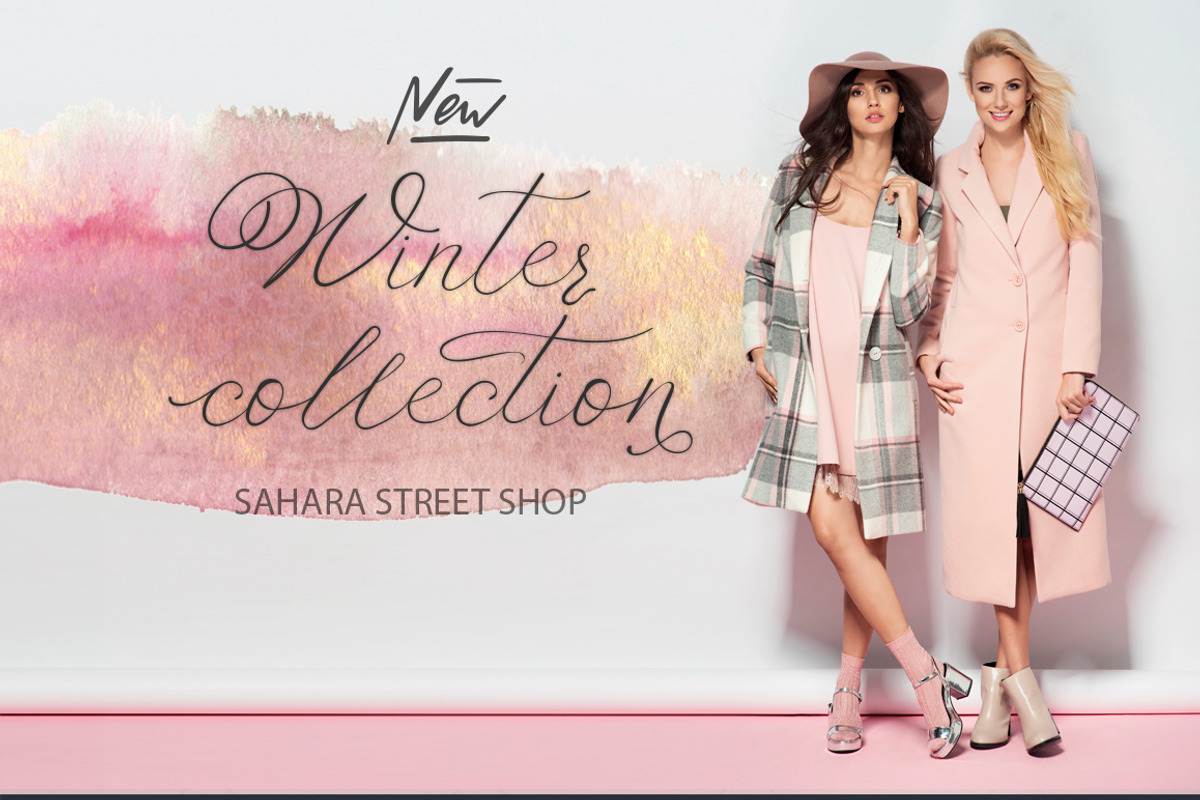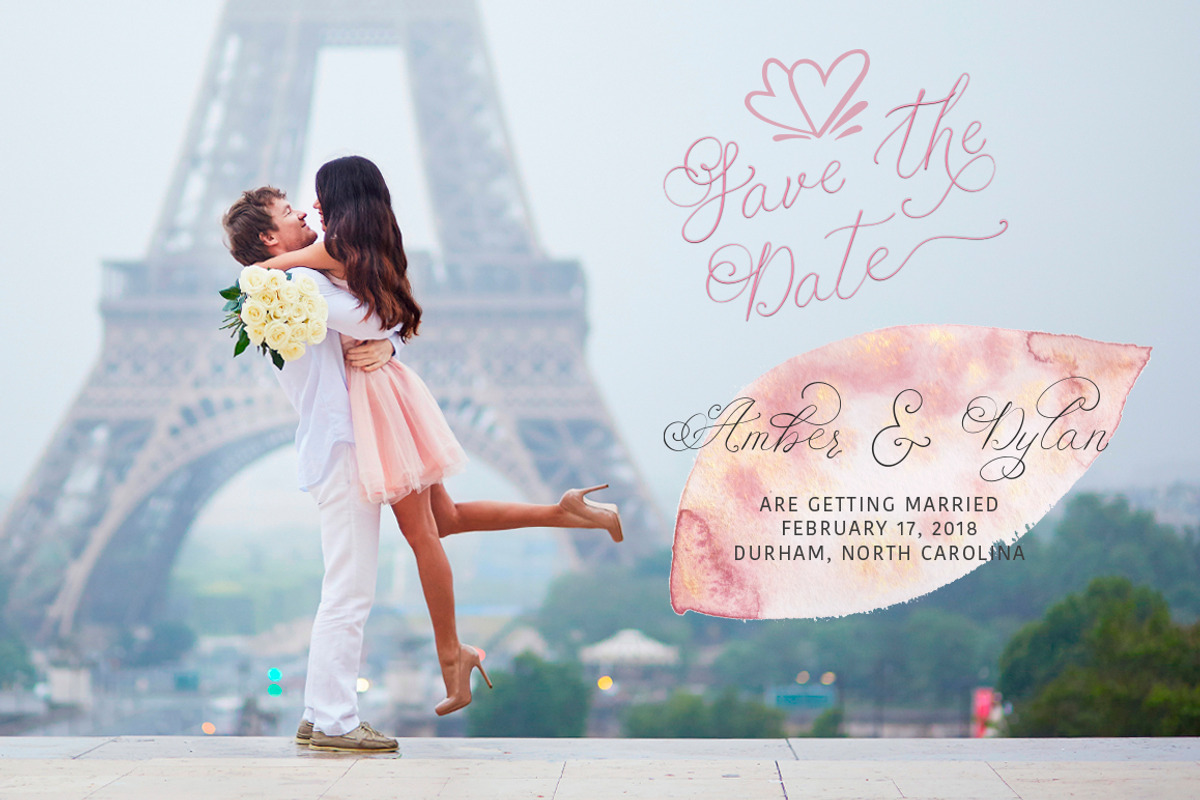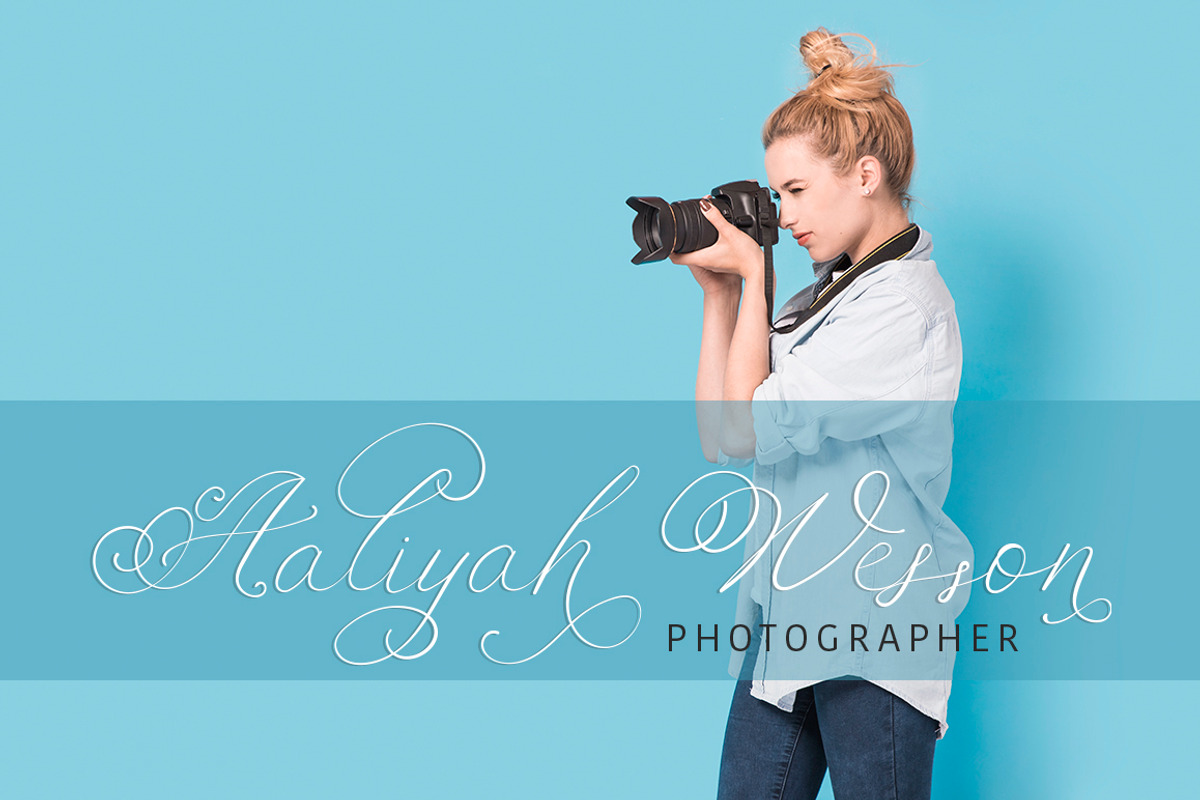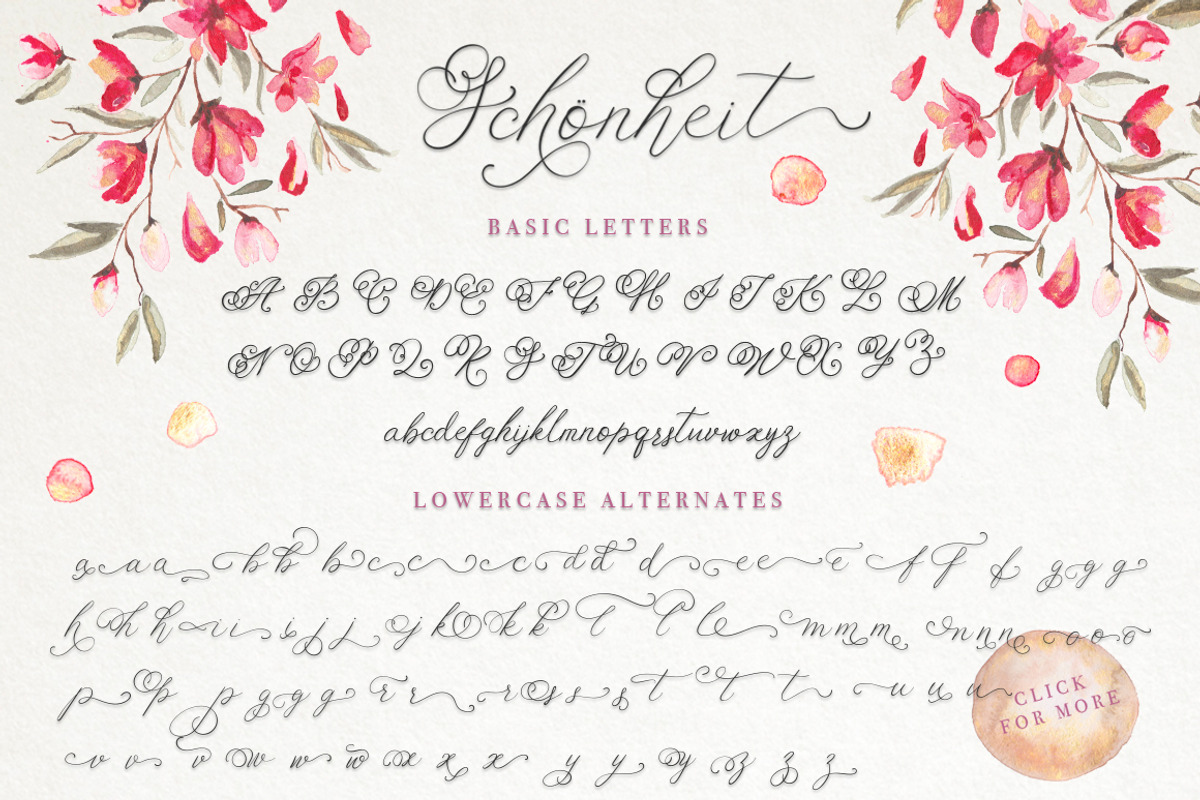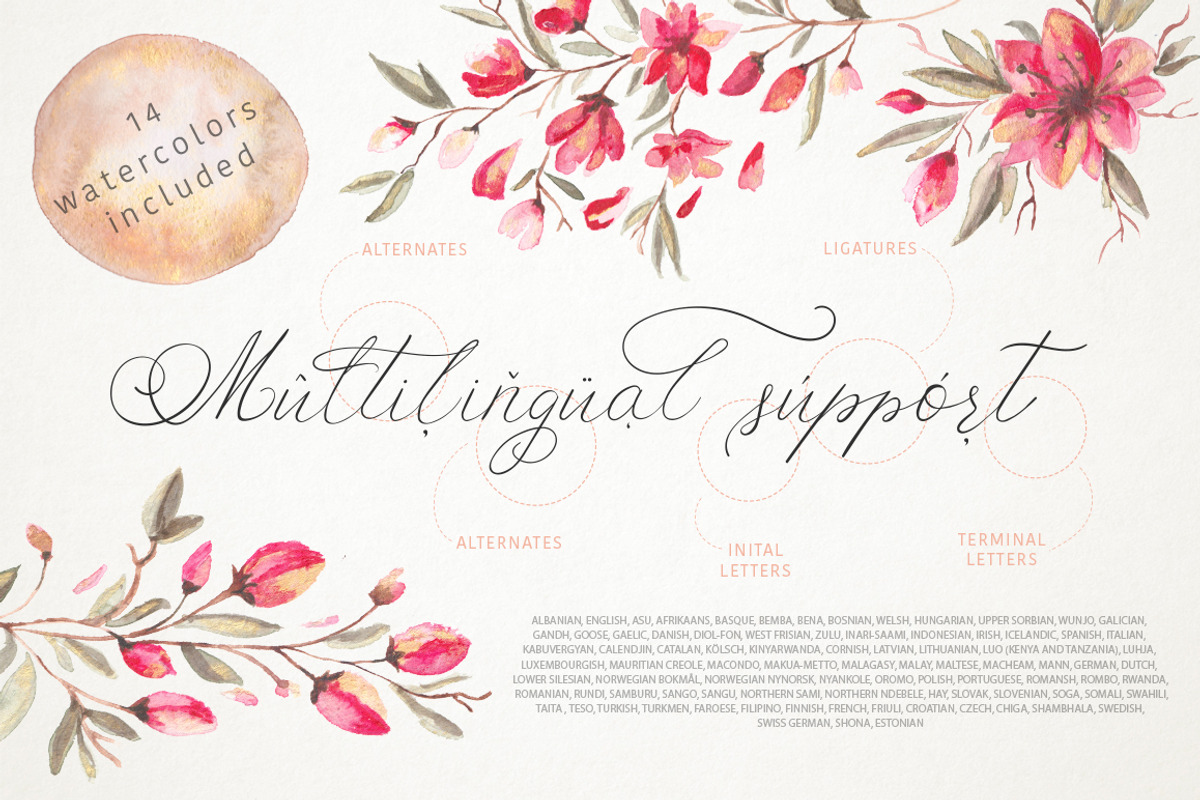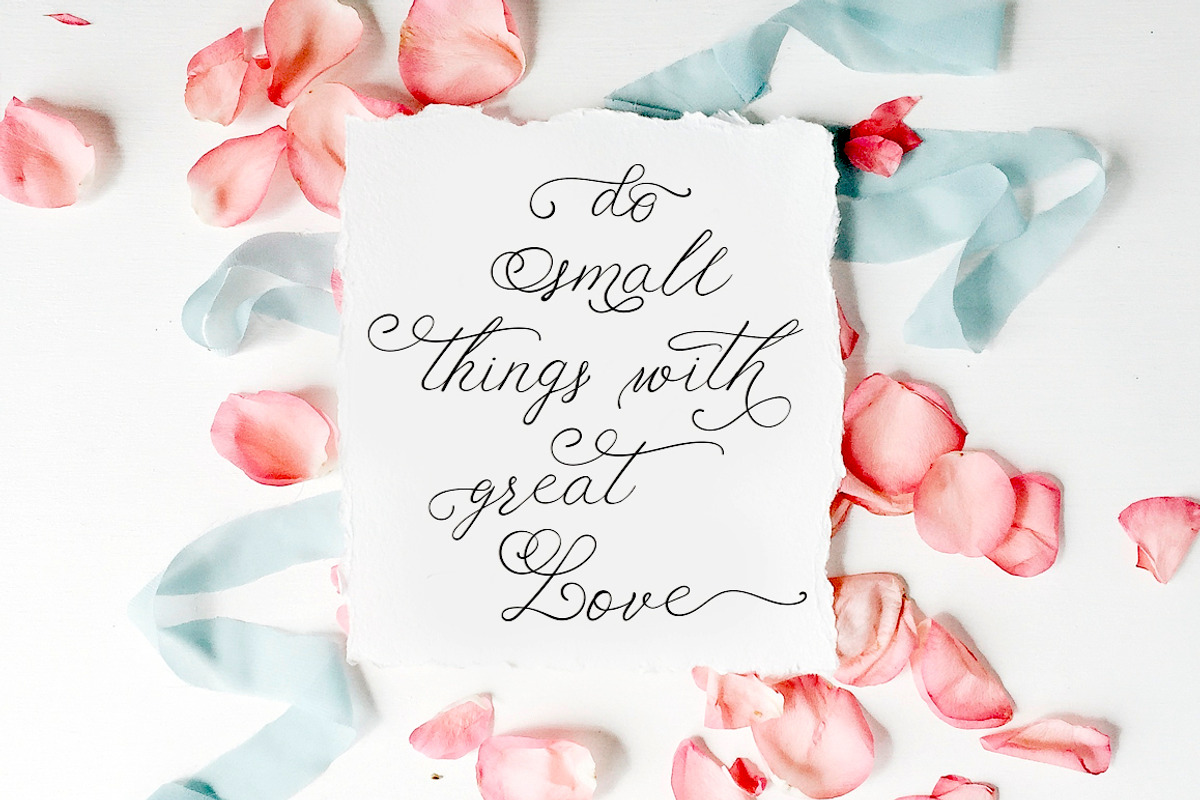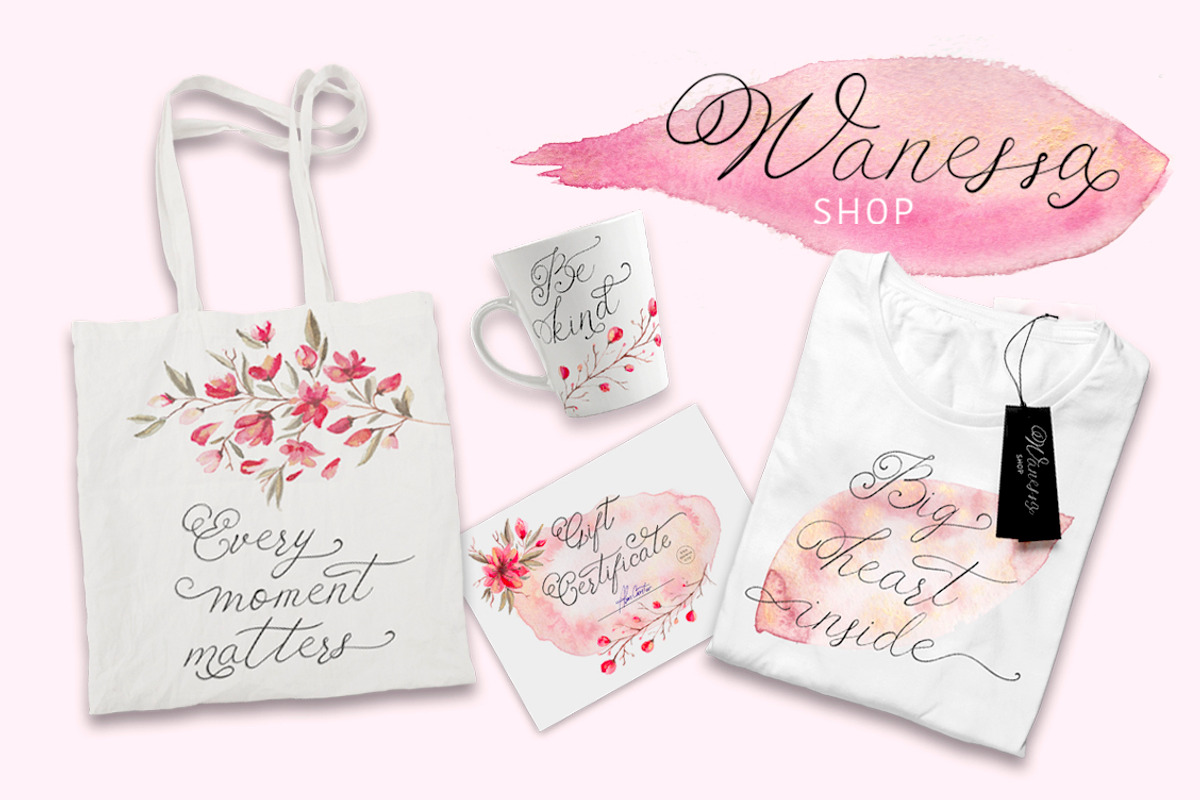
Schönheit font & watercolors.
Schönheitis a beautiful script font with gentle character. Schönheit in translation from German means beautiful woman. And this font is really beautiful, in which every glyph is thought out with German pedantry. Gentle calligraphy and lots of OpenType features make this font an unique tool for creating handdrawn texts, which are written by hand.
Uppercase letters have amazing swashes, lowercase letters have 3 stylistic alternates, as well as initial and final letters for all lowercase glyphs. Double letters ligatures are also included.
Fonts include multilingual support. Western European, Central European and South Eastern European languages are included. Please type characters in text box below to check any characters you need.
Schönheit Extras Font (OTF, TTF, WOFF, WOFF 2). It’s the additional font with decorative swashes and doodle ornaments.